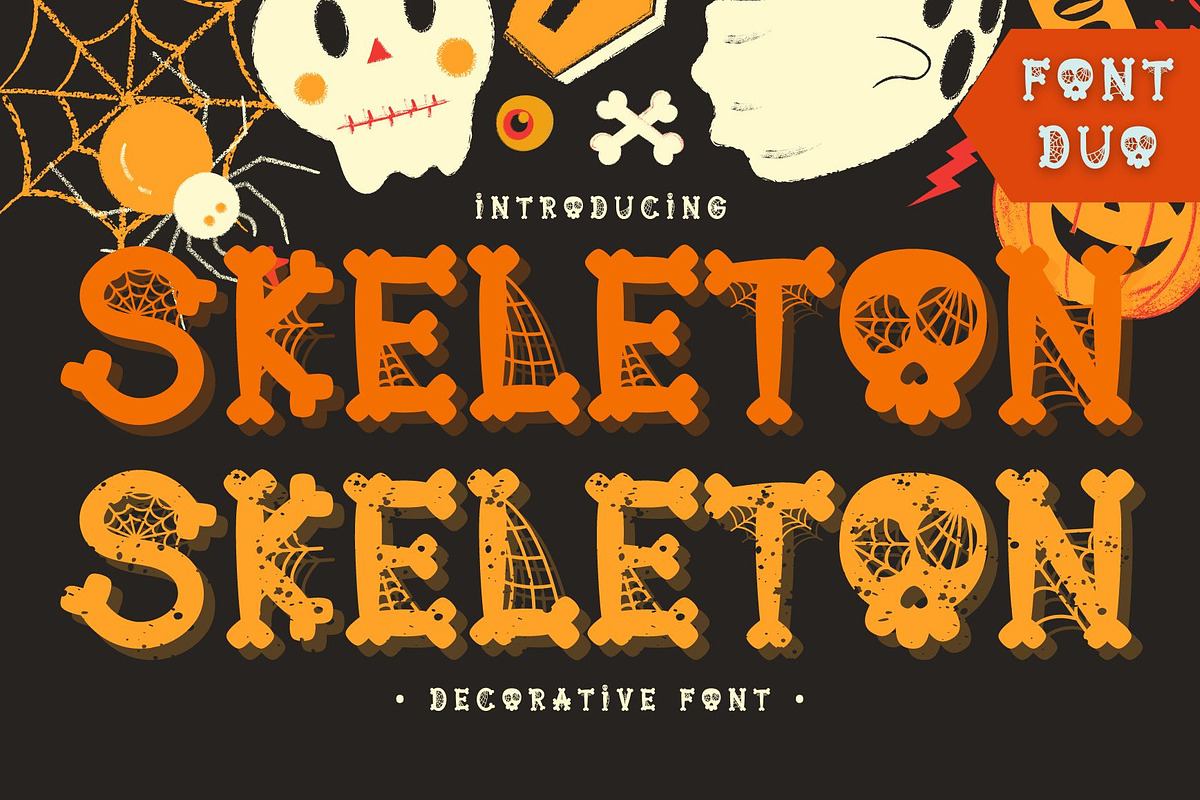
Skeleton Font Free Download is a spooky, bone-themed display typeface perfect for Halloween designs, horror posters, haunted house flyers, themed party invitations, and eerie branding. With its skeletal structure and creepy character shapes, this font adds a playful-yet-ghoulish touch to any project that needs a dose of fright and fun.
Using the Skeleton Font Free Download lets you instantly set the tone for spooky season. Whether you’re working on trick-or-treat printables, scary social media graphics, or monster-themed merch, this font grabs attention with its bone-inspired design and festive personality.